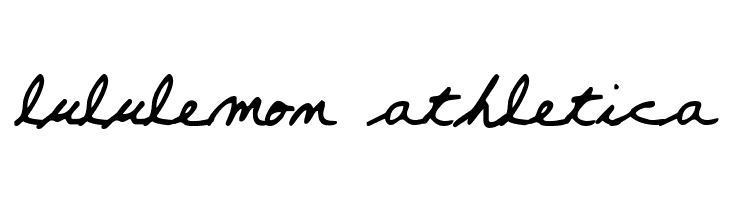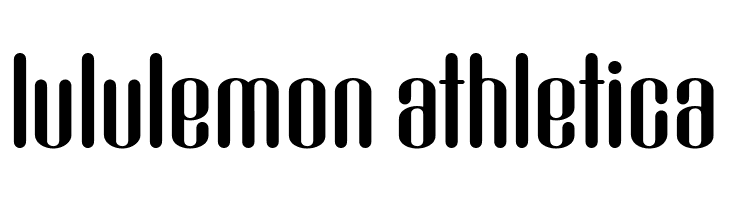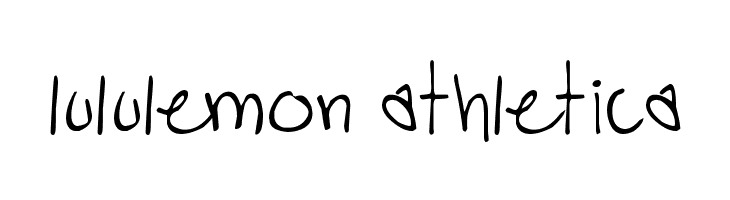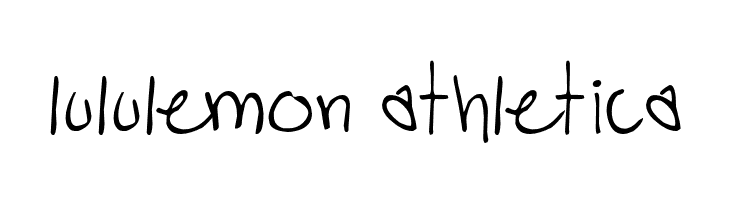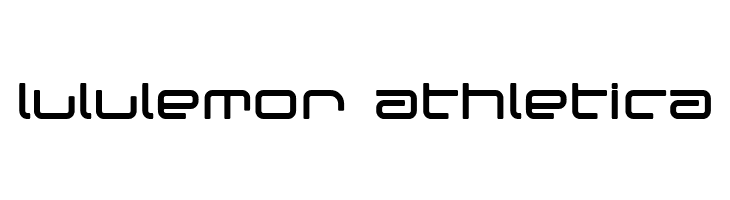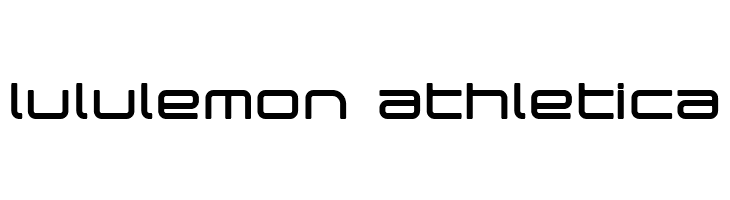
A playful, cursive handwritten font with smooth, connected characters.
A playful, handwritten-style font with dynamic, autograph-like strokes.
A playful, handwritten font with a dynamic and energetic autograph style.
A modern, geometric font with clean lines and rounded edges.
A modern, geometric font with a sleek and futuristic style.
A playful, star-filled font perfect for vibrant and creative projects.
A modern, elongated font with rounded characters and a sleek design.